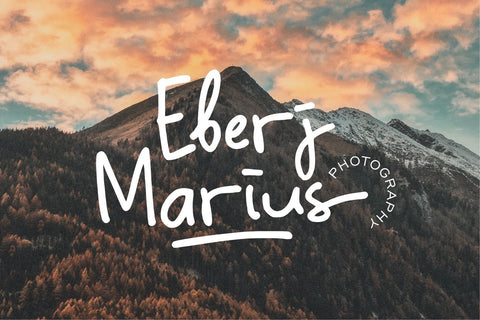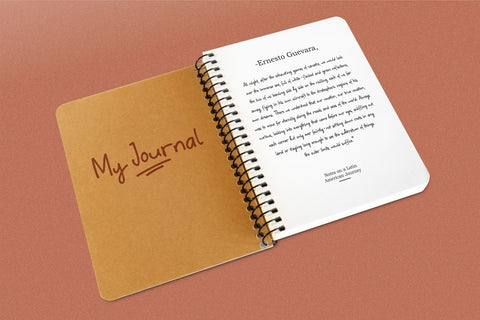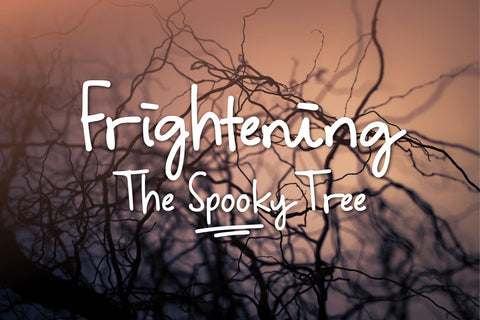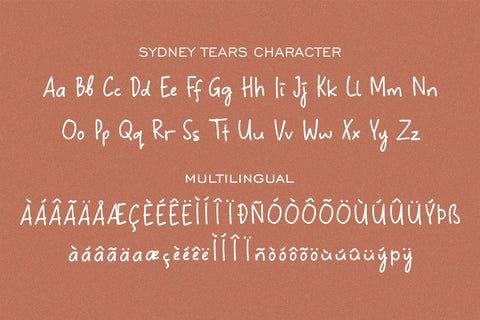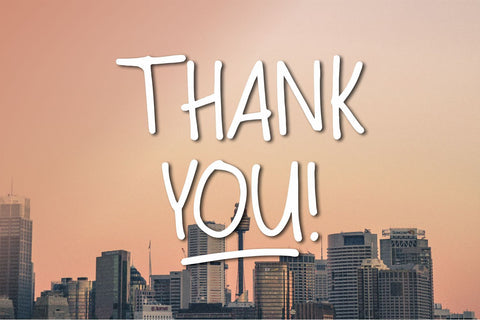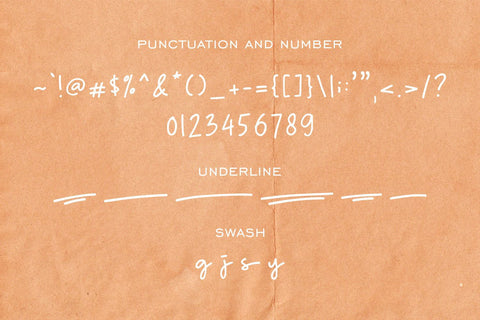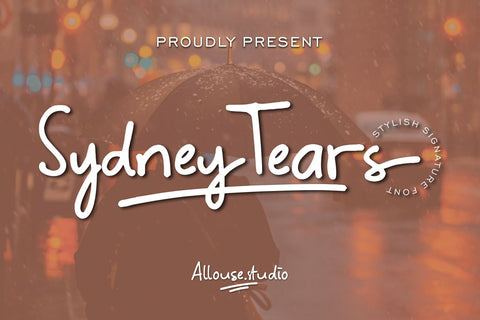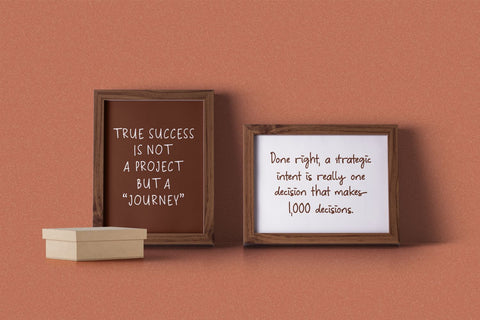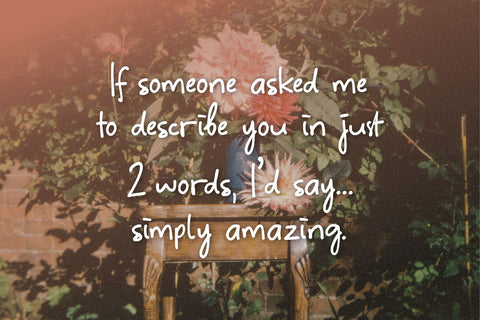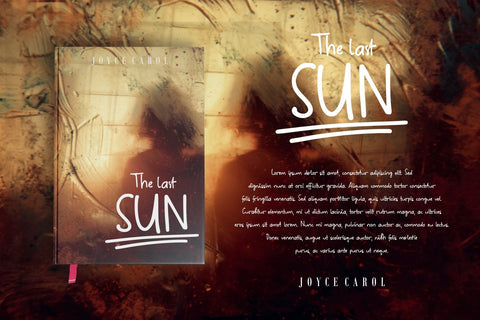
Sydney Tears - Stylish Signature Font
Proudly Present, Sydney Tears.
Sydney Tears is a Stylish Signature Font.
Sydney Tears is perfect for product packaging, branding project, megazine, social media, wedding, or just used to express words above the background.